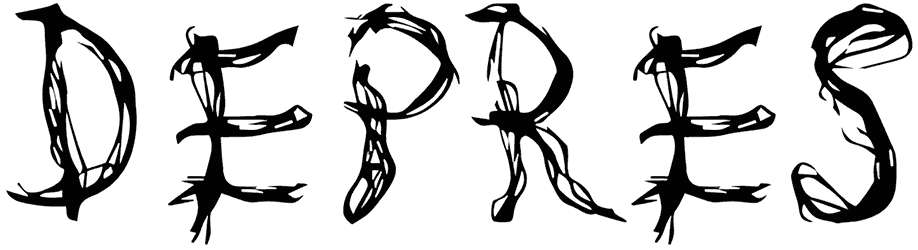
Depres Font
Depres font has that rough gothic energy that instantly makes a word feel heavier, darker, and a lot less friendly. The distressed blackletter style gives it a worn underground mood, as it belongs on a metal poster that has already survived rain, tape, and a few bad decisions.
Use it for hardcore band merch, horror zines, tattoo studio branding, dark streetwear, game titles, or festival posters that need a serious visual punch. Pair this scribble font with cracked textures, deep reds, grainy photos, or silver ink effects, and your layout will look loud without needing to explain itself.